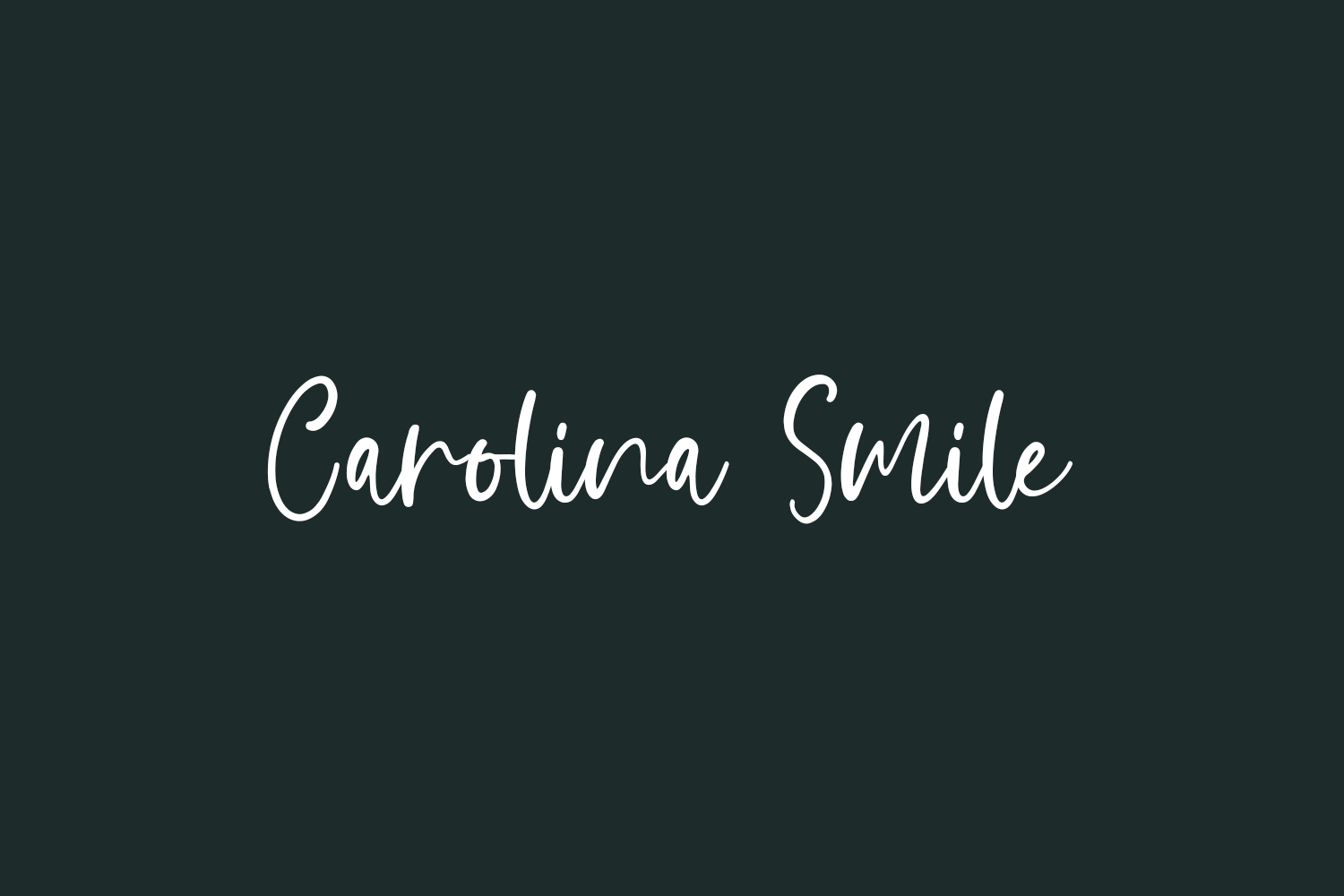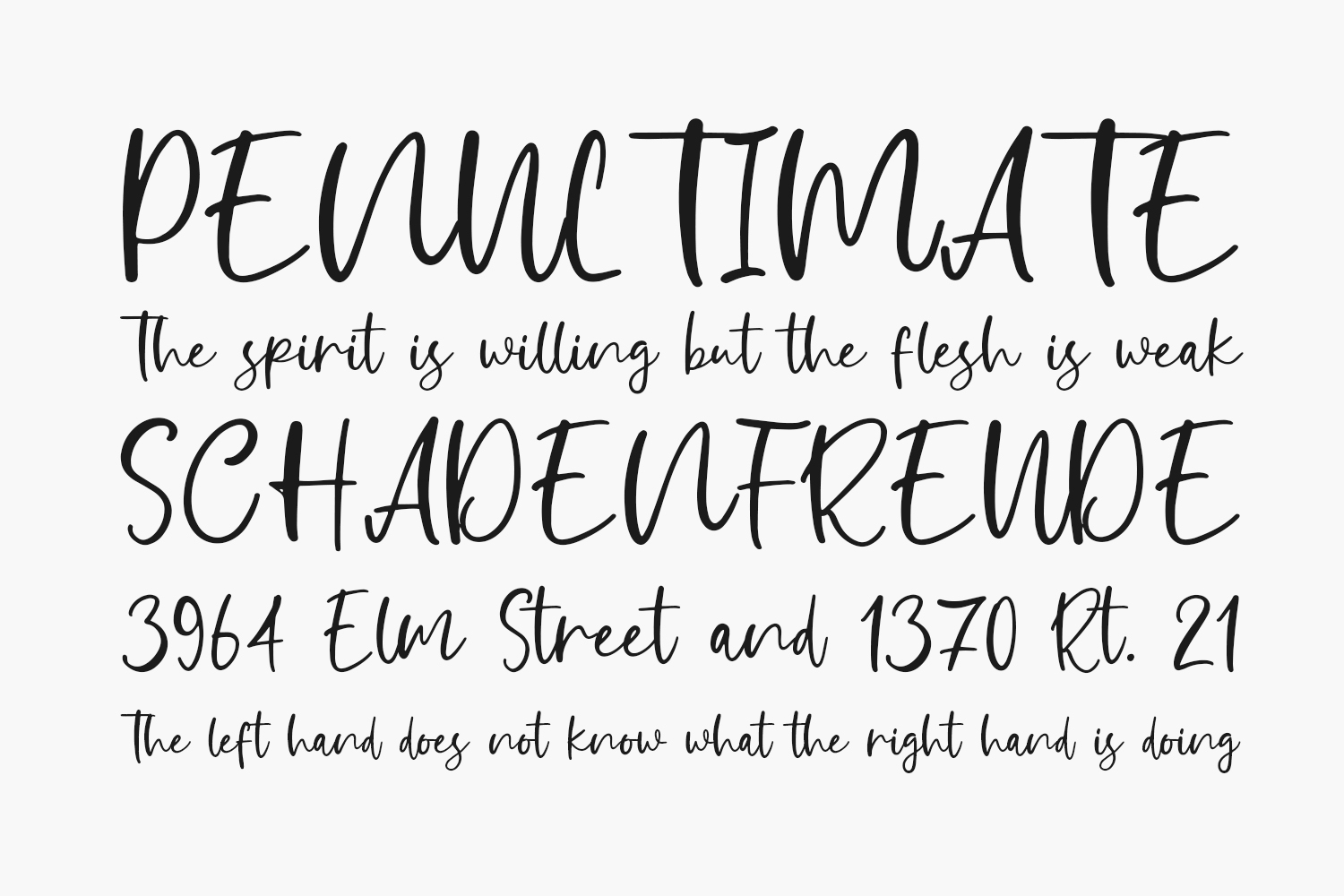
Carolina Smile Free Font is a fun and friendly calligraphy script font. Whether you use it for cartoon-related designs, children’s games, or just any creation that requires a playful touch, this font is the perfect choice for your designs. Carolina Smile Free Font was designed by Khurasan and is free for personal use only. Please purchase the full version for commercial use.